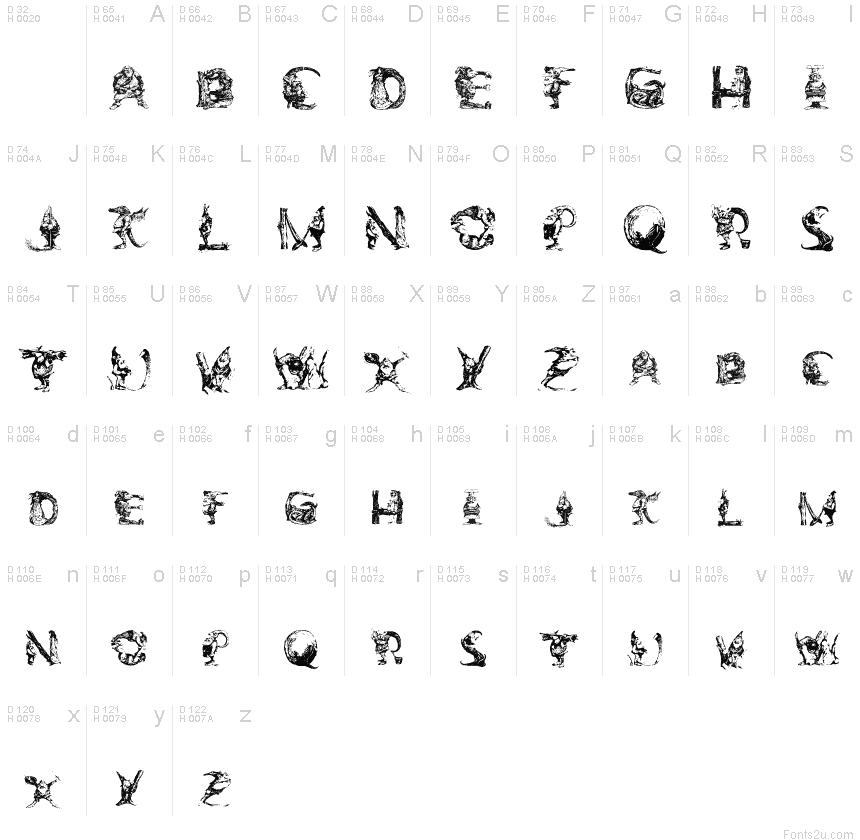
Elfabet Decorative
Elfabet Decorative font is a free decorative display typeface from the Elfabet family, turning each letter into a little inked fantasy scene. Its rough silhouettes, clawed textures, and creature-like forms give words a strange storybook pulse, so even a short title feels theatrical and alive.
Using Elfabet Decorative works beautifully for fantasy book covers, RPG titles, Halloween flyers, medieval fair posters, dark fairy-tale branding, themed merch, and spooky party invites. This free font reads best in short bursts at larger sizes; pair it with a plain serif or a quiet sans so the wild letterforms can keep all the attention.